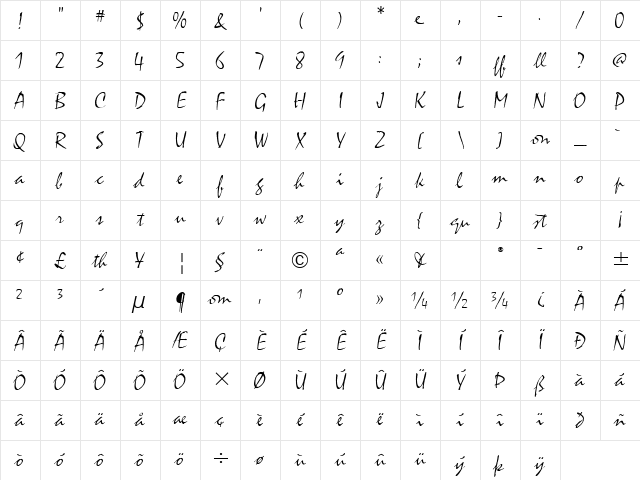
Complete MistralITC TT Light glyph index. Displaying only characters natively supported by MistralITC TT Light font.
MistralITC TT is a composed and adaptable typeface that performs quietly and consistently across a wide range of design contexts. Its slender proportions lend an understated elegance to any composition.